18 Best Vaporwave Fonts
Need a stunning vaporwave font that will call attention to your text? Choose Videocassette 80s Vaporwave Fonts. This wonderful sans serif display font is simple yet stylish, with all the glamour you need.
You really can't go wrong with Shade Blue 1980s Font, an understated neon font that manages to pack a punch. This fabulous retro font offers upper and lowercase characters, numbers, and symbols, as well as multilingual support.
When you're looking for a cool 1980s font featuring an outline style, check out Outrun V a p o r w a v e Font. Outrun works well for signage, titles, promos, and posters. It's offered in five different styles, so you have plenty of room for experimentation.
Rocket Clouds 1980s Font is a terrific neon script font that you absolutely need to have in your library. Inspired by 1980s music and neon lights, Rocket Clouds come in two styles: regular and alternative.
Binary Groove 80s Font is a great display font for those times when you need to create distinct posters, signage, logos, and more. This bold and eye-catching font features uppercase Latin characters only.
Embrace the world of retro when you choose Overdrive V a p o r w a v e Font. It's perfect for logos, posters, headers, signage, etc. In addition, it offers five different styles that work well with each other.
Heatwave 80s Vaporwave Font offers that cool 80s retro aesthetic inspired by artwork, movies, and music from that decade. Heatwave is an excellent font for T-shirts, posters, comics, album covers, and any creative project you have in mind.
Need more 80s font styles for your collection? Retrofuturism Vaporwave Fonts is a great choice. The font includes some cool bonuses you won't be able to resist. Add it to your YouTube videos and social media images for a whole new look.
Gnome Vaporwave Fonts is a bold and dynamic font that captures the essence of the 1980s retro-futuristic style. An excellent font choice for logos and branding projects, Gnome includes upper and lowercase characters, numbers, punctuation, and multilingual support.
Need an 80s font to show off your title text? How about Sunrise 80s Vaporwave Font? Inspired by classic retro 80s graphics, this handmade font is cool and edgy. The download includes upper and lowercase characters, numbers, and punctuation, as well as two different styles.
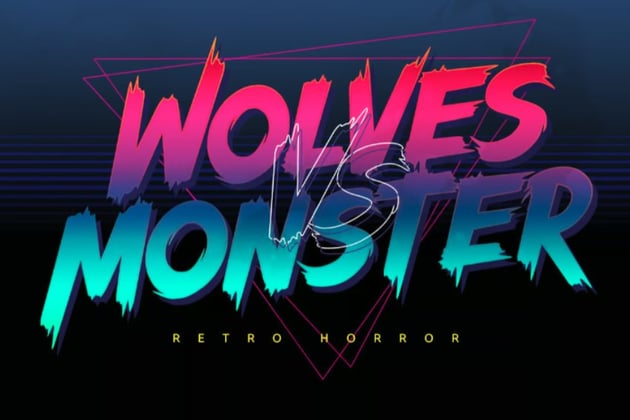
Wolves vs Monster 80s Vaporwave Font is a great choice when you're looking for a retro font for an upcoming project. Inspired by the thriller and horror movies of the 80s, Wolves vs Monster is perfect for gaming channels, video game apps, band album covers, T-shirt designs, and more.
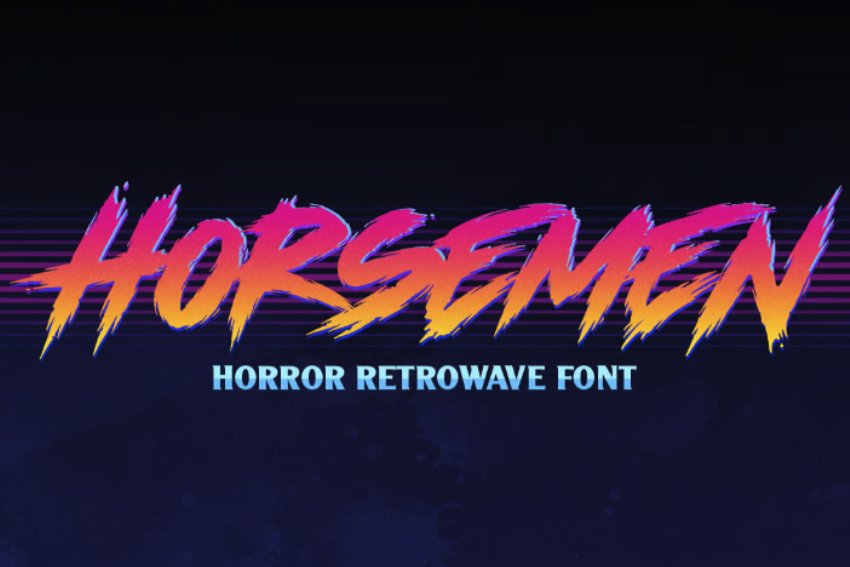
Are you looking for a fun handwritten font? Horsemen 80s Vaporwave Font may be just the thing for you. This fabulous 80s-inspired font serves up a dark side that's great for horror, mysteries, games, album covers, comics... you name it.